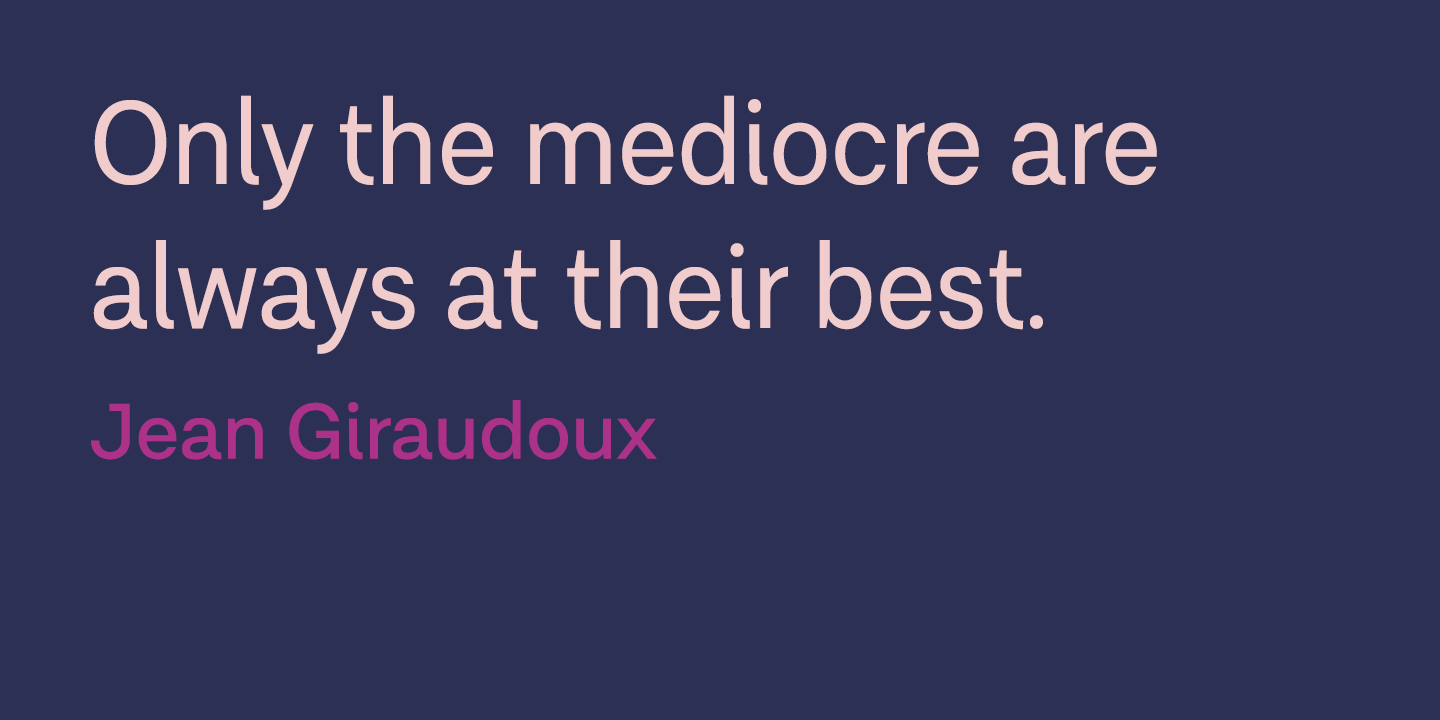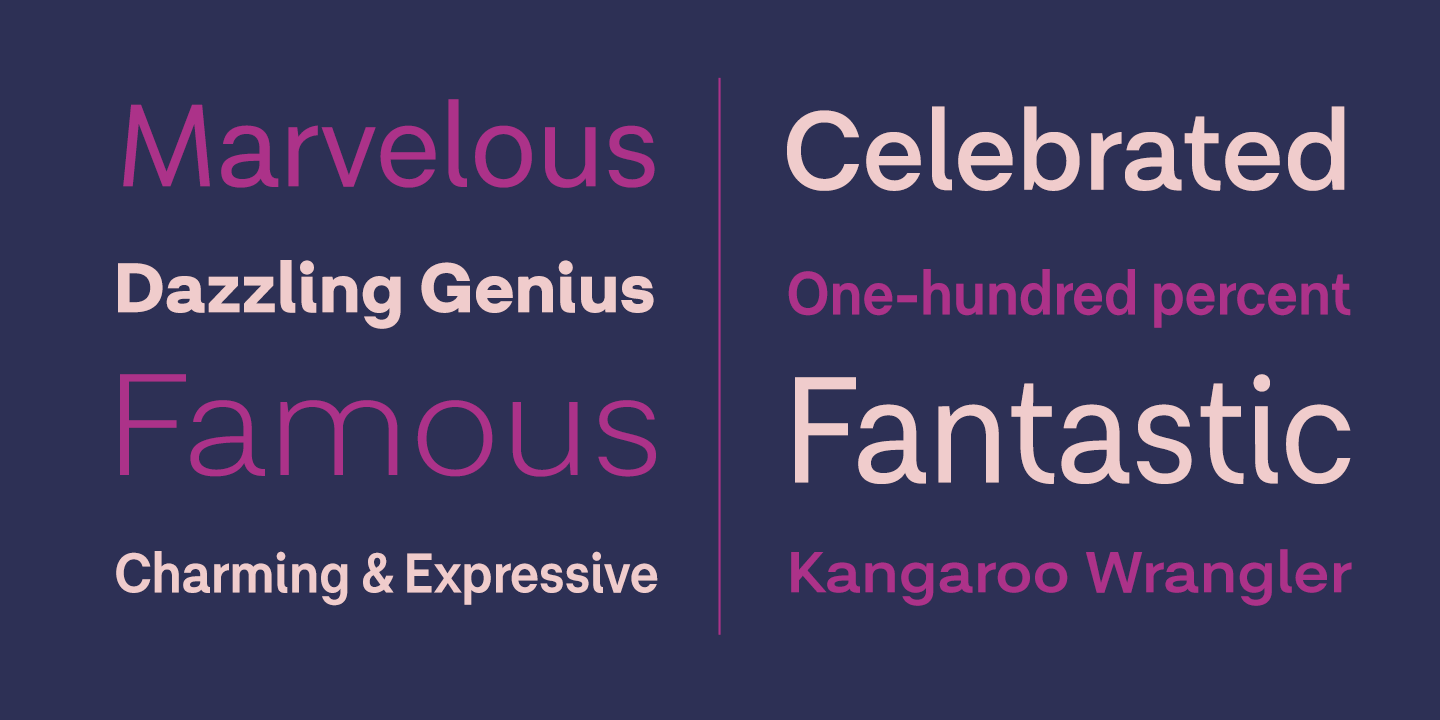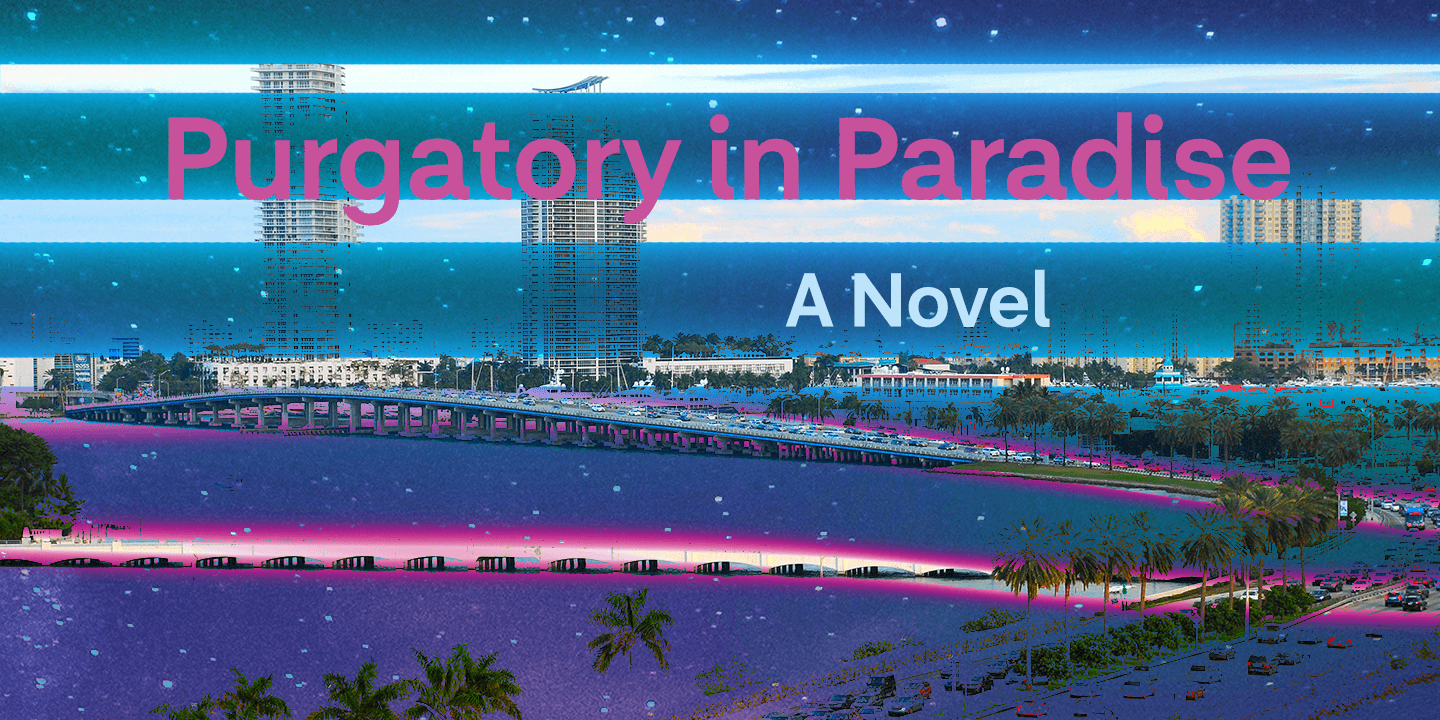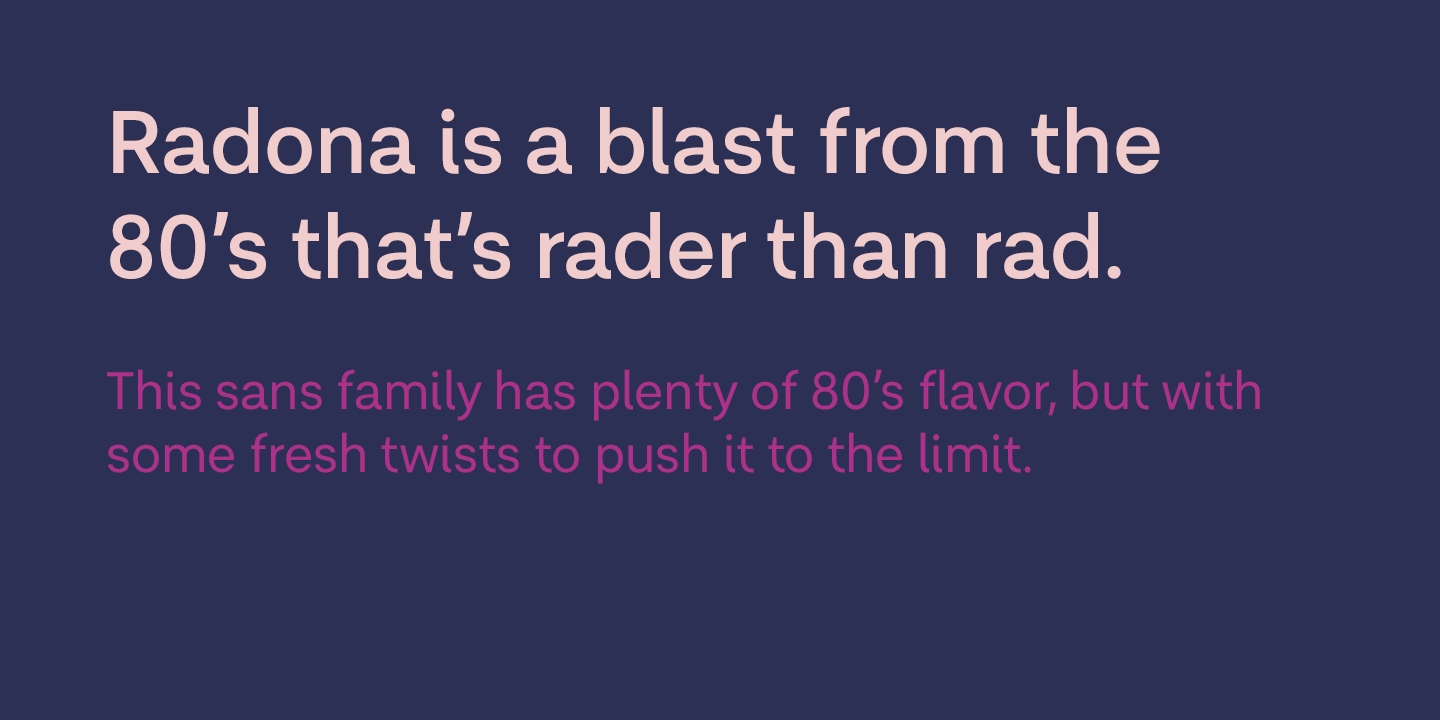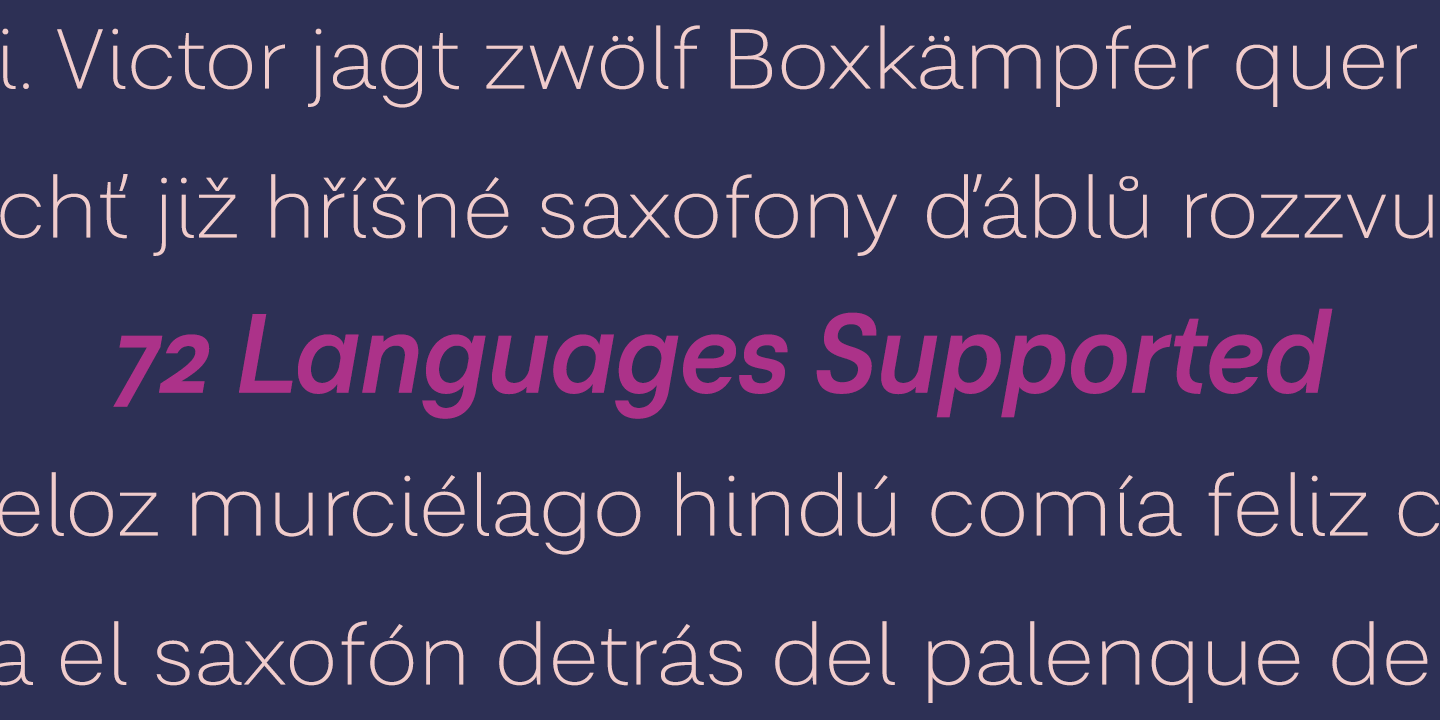
About Radona
Radona is a blast from the 80\’s that\’s rader than rad. Radona is the typeface version of Synthwave, an electronic music subgenre that takes influence from the 1980s but builds on it, resulting in a construct that lives in the minds of both those who have…